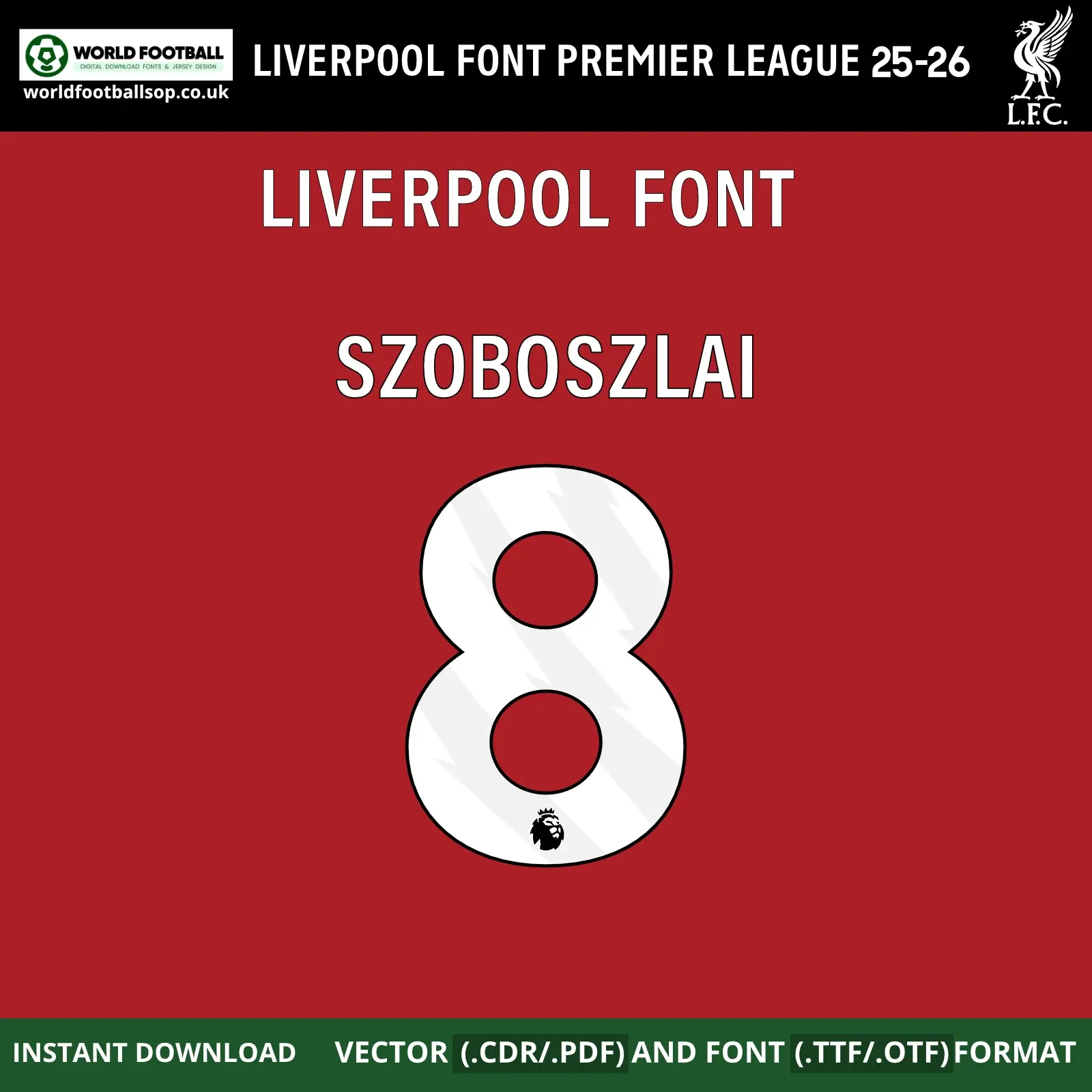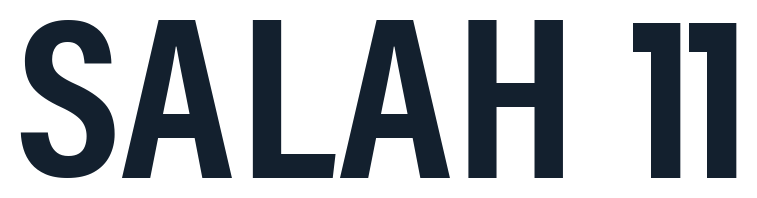
Liverpool Font Premier League 2025/26 - Home Kit Anfield Typography
Bring the atmosphere of the Kop into your designs with the Liverpool Font Premier League Home Kit 2025/26. This modern football typeface is based on the lettering used on Liverpool’s 25/26 Premier League shirts, with clean curves, consistent stroke weight and strong visibility on the classic all‑red home kit. The numbers are tall and confident, while the letters follow the same style so every nameset - from “Szoboszlai 8” to your own name – looks like it belongs on the back of a real match shirt.
The design balances modern Premier League branding with Liverpool’s historic identity. Rounded corners soften the shapes so they feel friendly and readable, but sharp internal cuts keep a fast, dynamic look that fits the team’s high‑tempo football. This pack was created for fans, designers and print shops who need a reliable Liverpool 2025/26 Premier League font for custom jerseys, posters, social media content and more.
Full uppercase A–Z alphabet plus key accented characters used in player names (Á, É, Ï, Ñ, Ø, Ü, etc.)
Numbers 0-9 in Premier League style, ready for back, front and short applications
Design highlights
Premier League ready: Proportions and spacing are tuned for clarity on the pitch, in replica prints and in digital score graphics.
Home kit match: Designed to sit perfectly on the 2025/26 red home shirt, with a crisp white look that stands out from the stands or on TV.
Production‑friendly vectors: Clean, closed paths make cutting and printing easier, reducing manual cleanup for print shops and kit rooms.